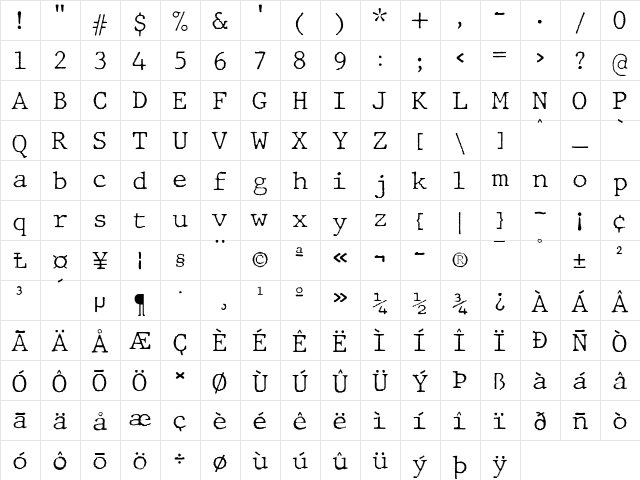
JMH Typewriter Thin Font Preview
Design Context for JMH Typewriter Typeface
JMH Typewriter brings the precise, column-aligned rhythm of monospaced typography to designs that value technical clarity and systematic order. Its slender proportions lend an understated elegance to any composition.
Well-suited to data-driven dashboards, coding tutorials, and any design that wants to reference the world of programming.
Pro Tip: Use JMH Typewriter with slightly increased line-height for extended reading — fixed-width spacing can feel dense in longer passages without extra breathing room.